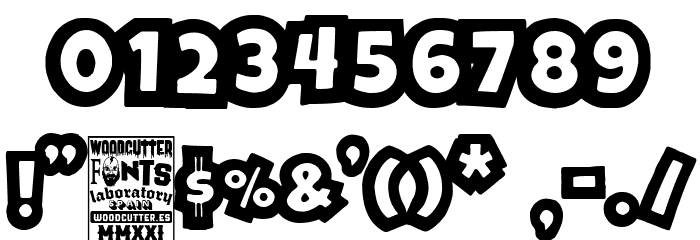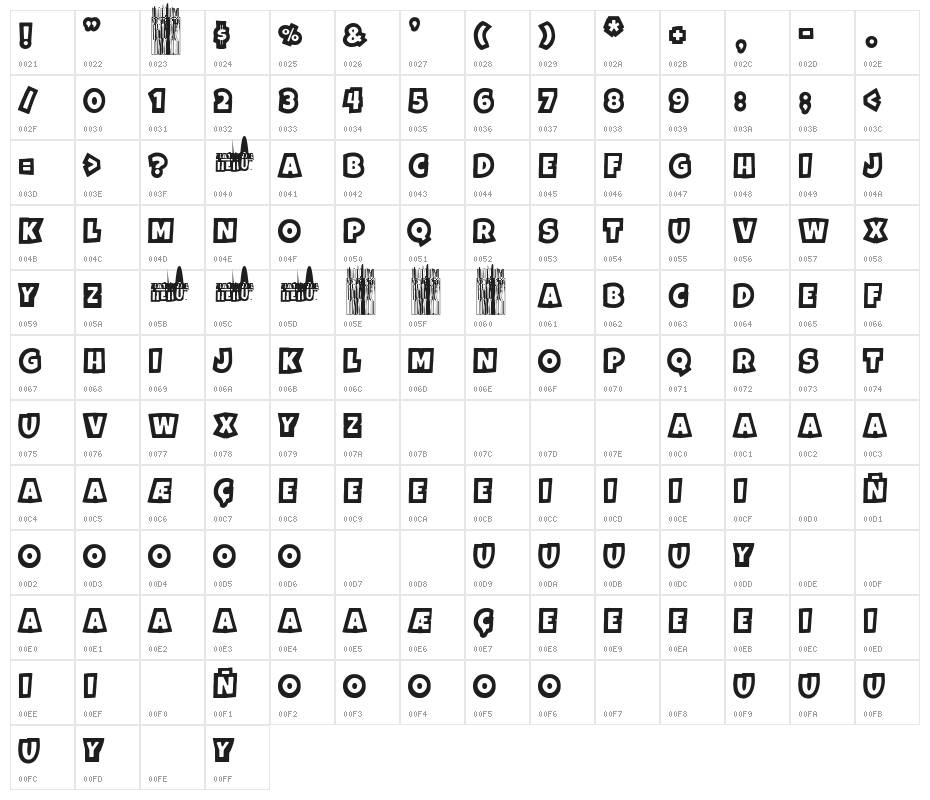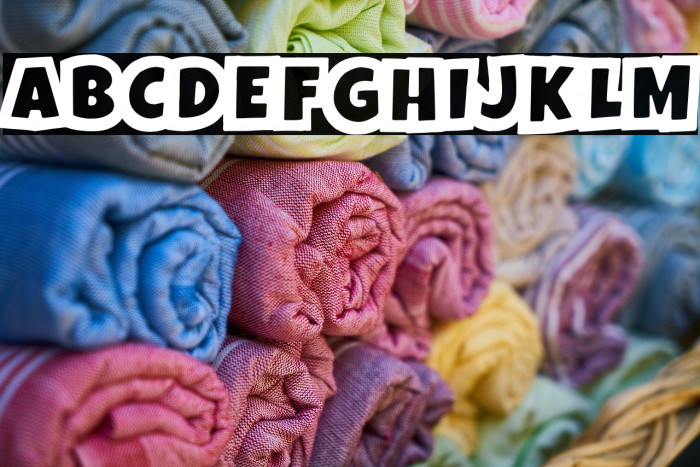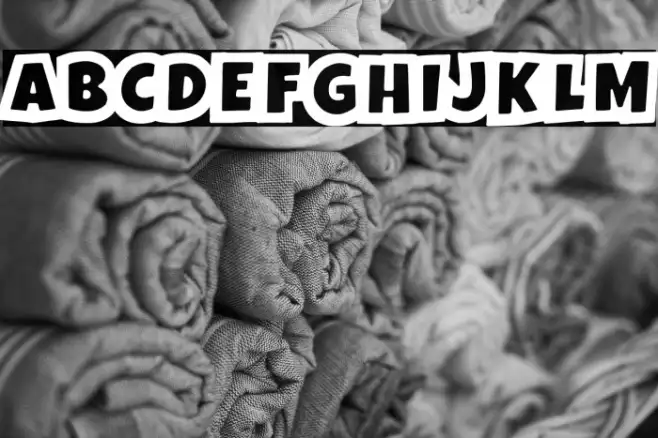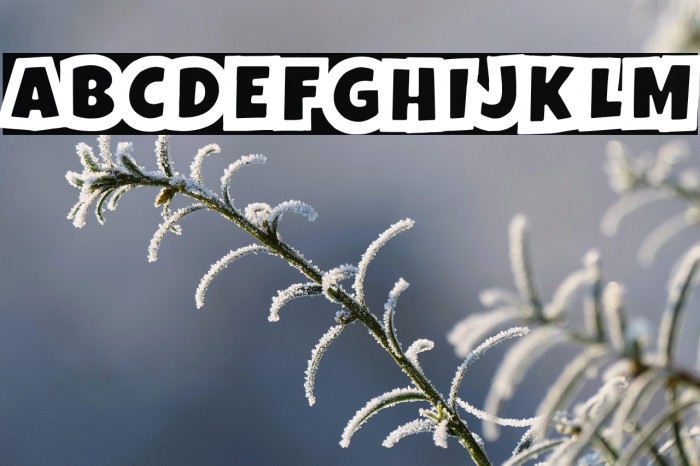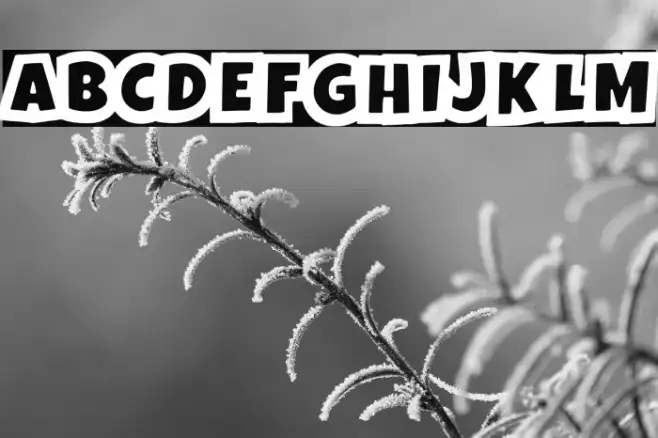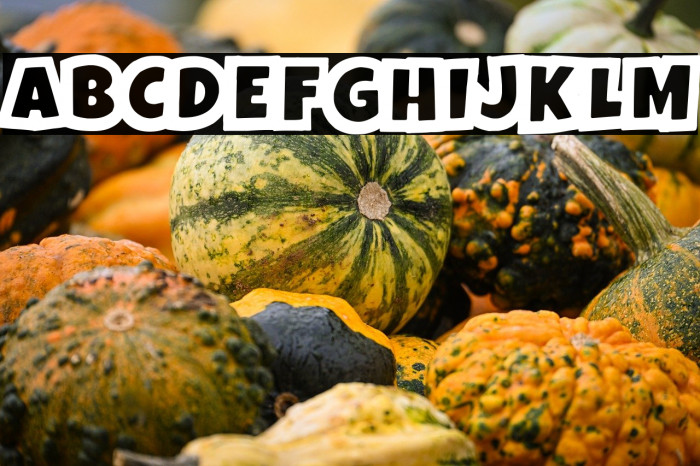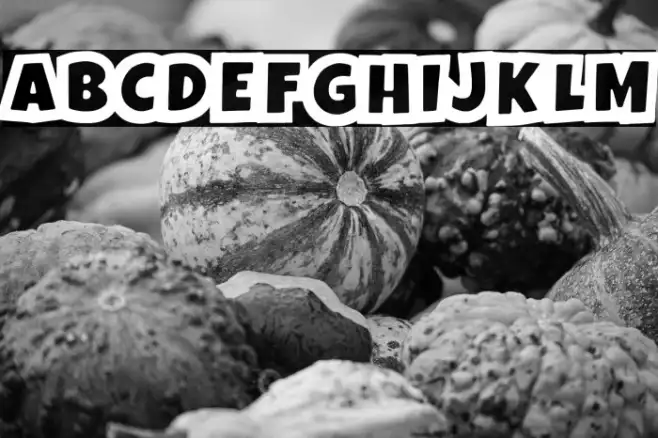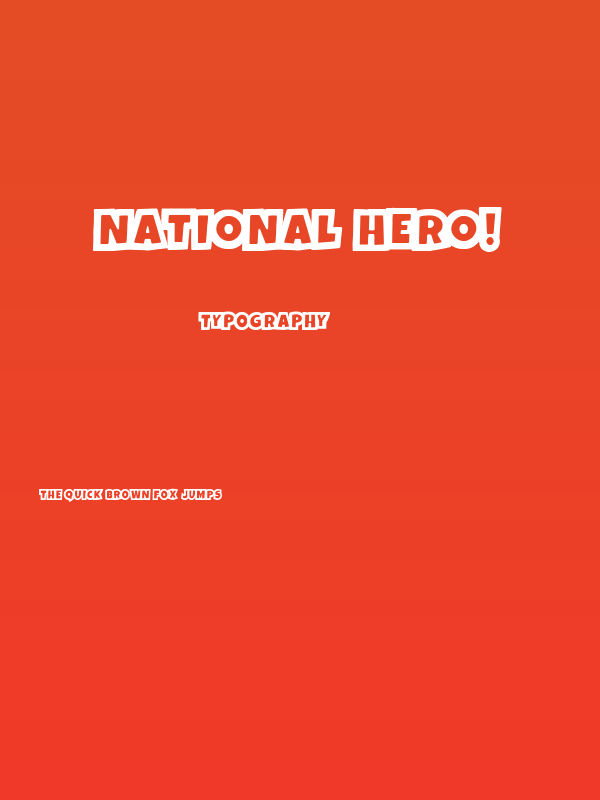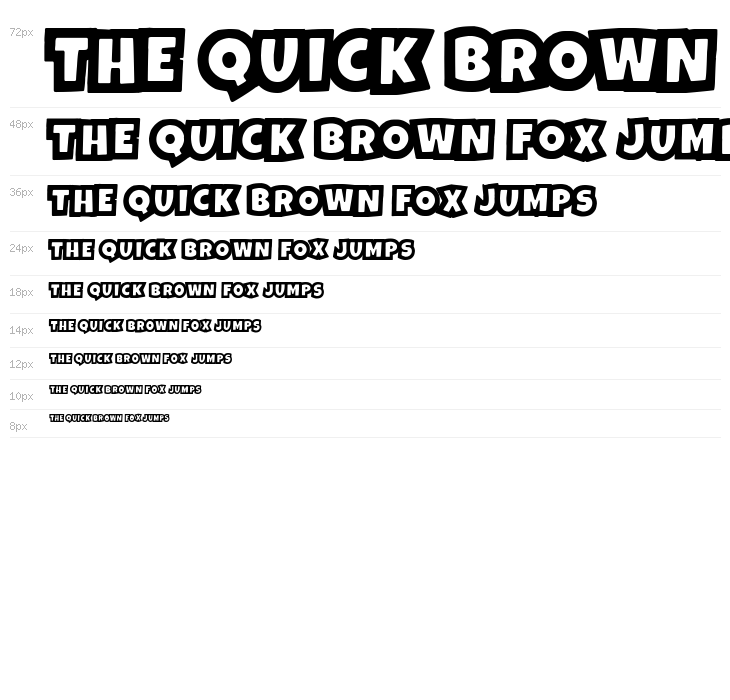
National Hero! Font
National Hero! Description
This font features bold, thick lettering with a playful and dynamic style. The characters are outlined, giving them a three-dimensional effect that stands out. The uppercase and lowercase letters maintain a consistent weight, contributing to a cohesive look. The numbers and special characters follow the same bold and outlined design, ensuring uniformity across all elements. The font's style is reminiscent of comic book lettering, making it ideal for projects that require a fun and engaging appearance. Its strong presence and high readability make it suitable for headlines and titles.
| Overall Style | Playful, Comic |
| Proposed Projects | Ideal for comic books, children's books, posters, and playful branding. |